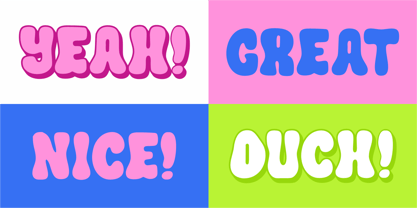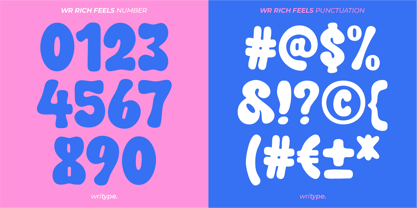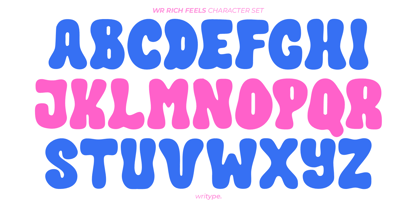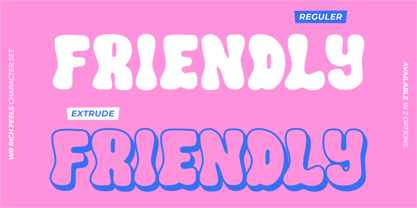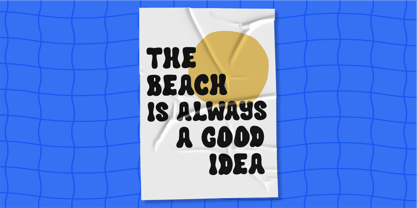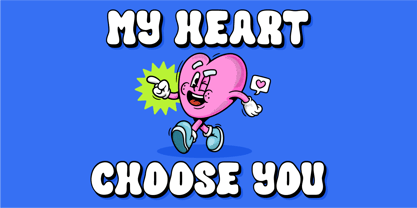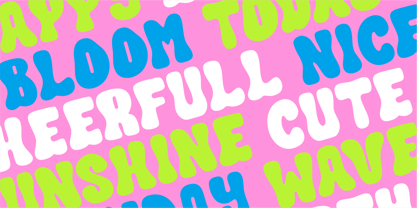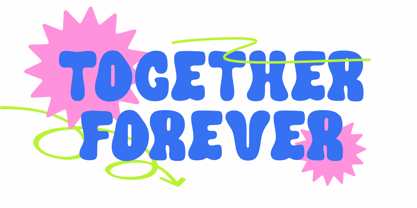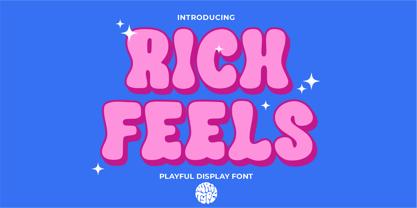
WR Rich Feels
by WriType
The WR Rich Feels Font Family was designed by Wira Pras and published by WriType. WR Rich Feels contains 2 styles and family package options.
WR Rich Feels is a chunky, hand-drawn font with unique curves that add a playful yet bold touch to any design. Perfect for posters, branding, packaging, and headlines, this font stands out effortlessly.
Available in two styles: Regular and Extrude, WR Rich Feels lets you create striking layered typography with depth and character.